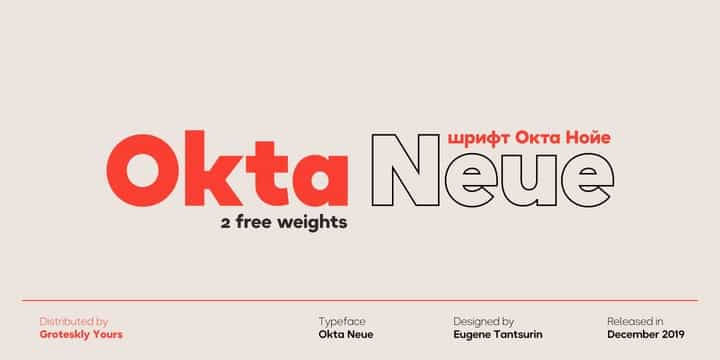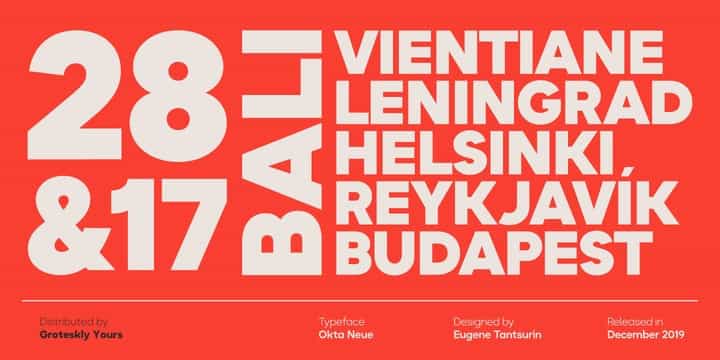
Okta Neue Font provides a stylized contemporary sans-serif typeface that can be used for titling, logo designing, web design and branding. Modern with an air of sophistication when written in the all capitals with open letters if you want something fancy, but at the same time it looks great when written in low case and capital letters for timeless look.